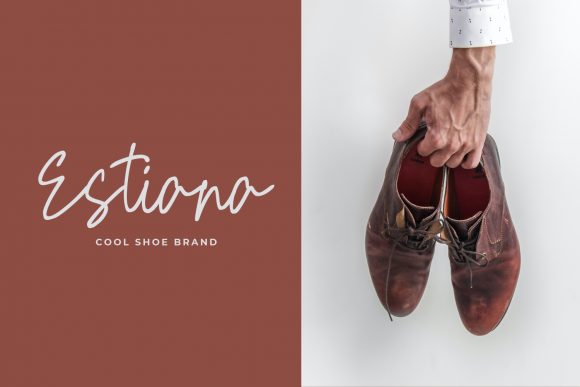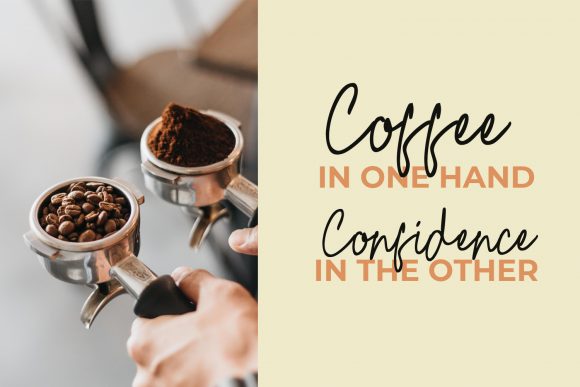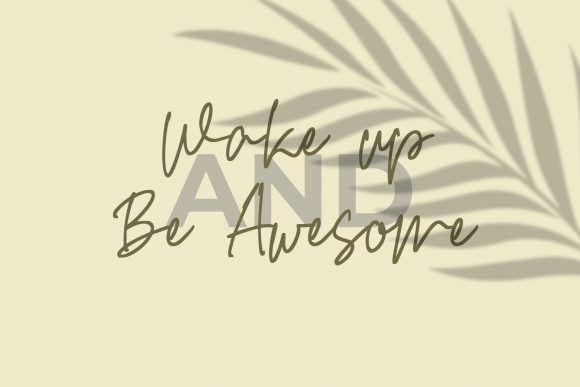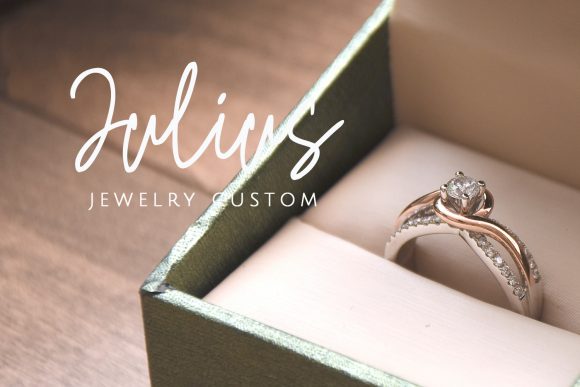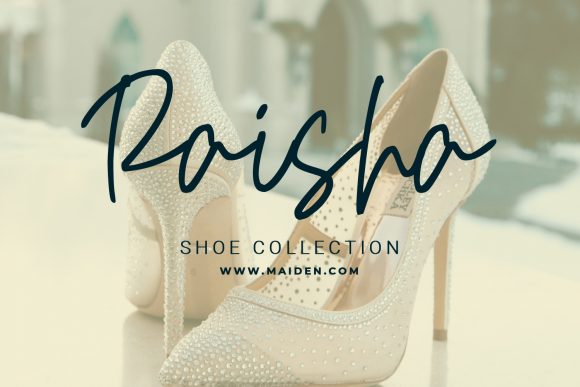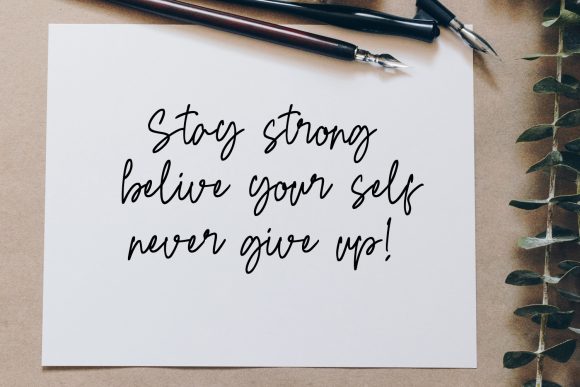
Introduction to Meylha Font
As designers, we’ve all been there – staring at a blank canvas, struggling to find the perfect font to bring our creative vision to life. The search can be overwhelming, but what if you stumbled upon a font that not only elevates your design but also adds a touch of luxury and sophistication? Enter the Meylha Font, a stunning light handwritten font that is sure to make your design projects shine.
With its fashionable feel and high-quality design, the Meylha Font is a valuable resource for designers looking to create stunning visuals for their next project. Whether you’re working on a free download, a high-end brochure, or a creative campaign, this font is sure to make a lasting impression. And with its transparent background, it’s easy to integrate into any design, no matter the complexity.
- High-quality design: Meylha Font is a premium font that offers a sophisticated and elegant look perfect for creative projects.
- Unique characteristics: Meylha Font features a unique blend of modern and classic elements, offering a distinctive look for creative projects.
Honest Review: Meylha Font
I recently had the chance to work with the Meylha Font and I must say it’s been a pleasant experience. One of the things that caught my attention was its free download option, which is always a bonus for designers.
One of the standout features of the Meylha Font is its high quality, making it perfect for any creative project that requires a professional touch. The font is also available with a transparent background, which gives designers more flexibility when it comes to layering and composition.
Overall, I’m impressed with the Meylha Font and would definitely consider using it for future design projects. Its high quality and transparent background make it a valuable resource for designers.
Meylha Font is perfect for creative projects, such as social media graphics, presentations, and infographics. It is also ideal for designing custom graphics, logos, and branding materials. With its high-quality design and transparent background feature, Meylha Font is a valuable design resource for any creative project.